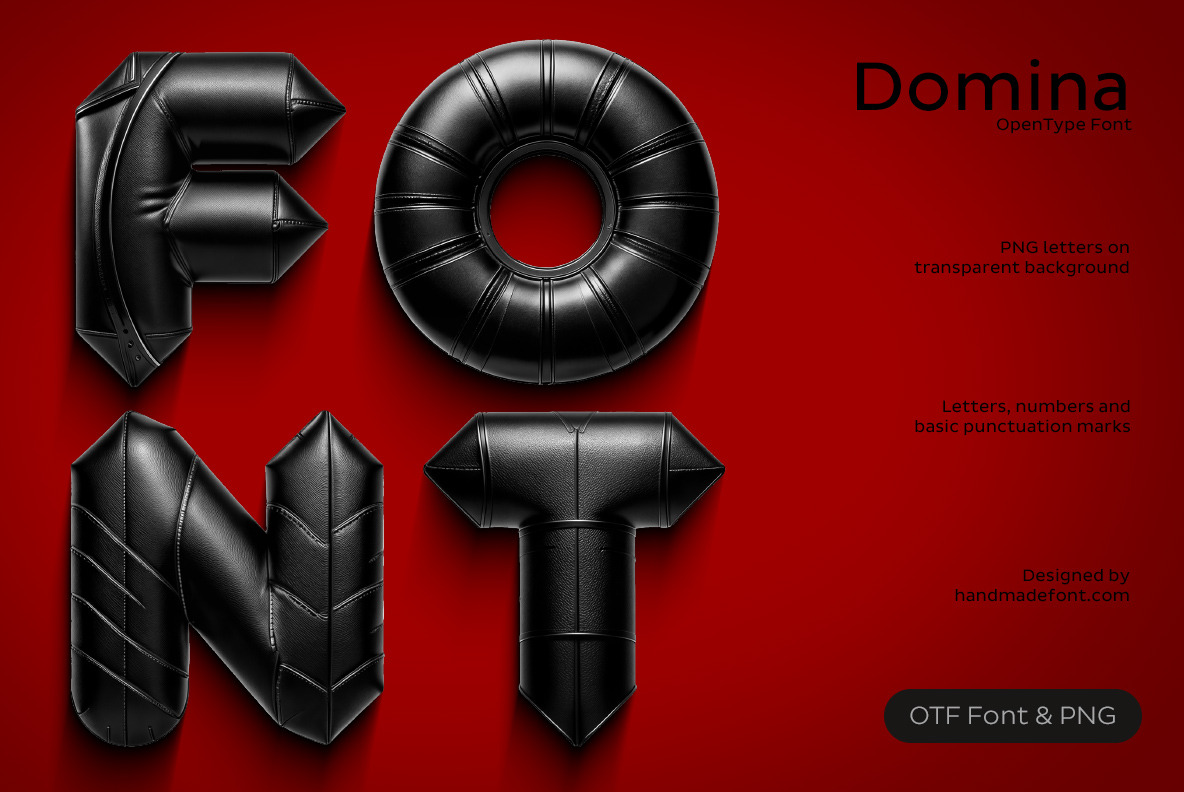
Domina Font
Introducing Domina Font — a bold, seductive typeface wrapped in glossy black leather and dripping with attitude. Each letter and number is sculpted to resemble high-fashion bondage gear, complete with curves, seams, and sultry stitching. This font doesn’t whisper, it commands. With a dominatrix's poise and a rebel’s soul, Domina Font is perfect for daring designs, erotic editorials, underground zines, or anything that struts the fine line between art and provocation. It oozes power, confidence, and kink. Whether you're designing for pleasure, play, or pure aesthetic shock value — Domina Font is here to take control and leave a mark.
A high definition OpenType Font. Contains uppercase characters, numerals and basic punctuation. (Draw height roughly 800 pixels). All letters and glyphs that comprises this font you can see on the preview.
- Letters : A B C D E F G H I J K L M N O P Q R S T U V W X Y Z
- Numbers : 0 1 2 3 4 5 6 7 8 9
- Others : ! ? - . ' $ € % & #